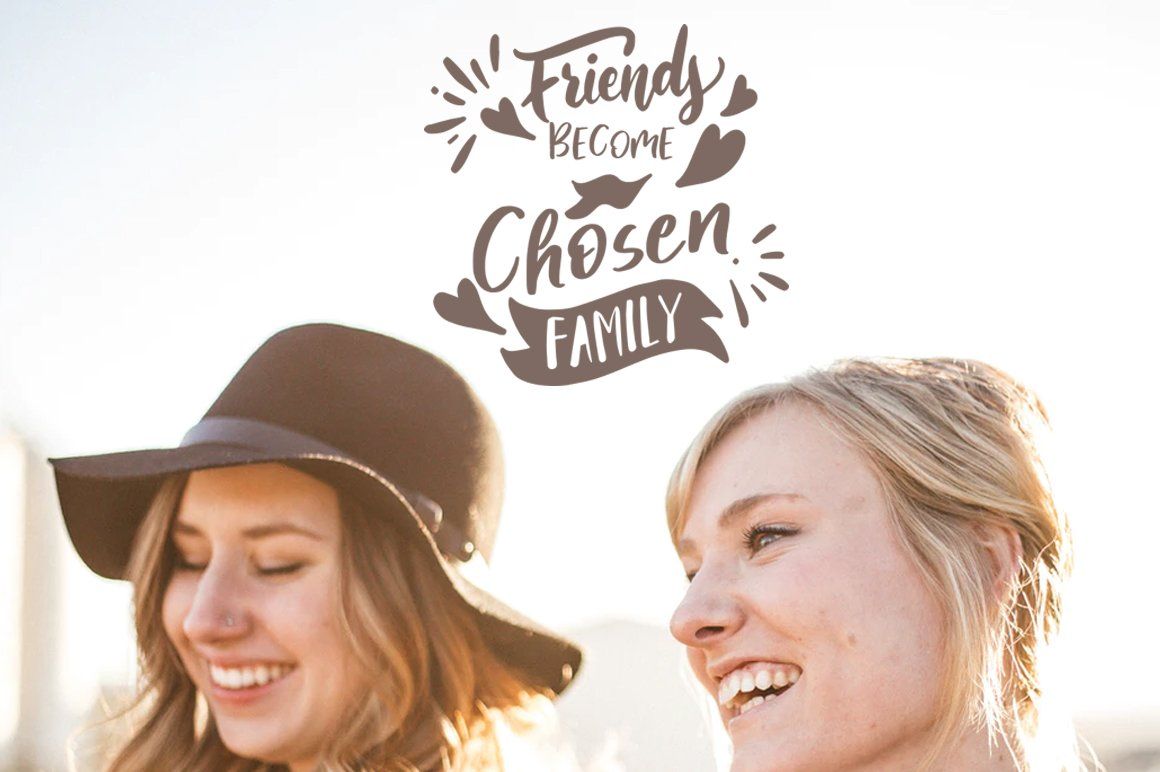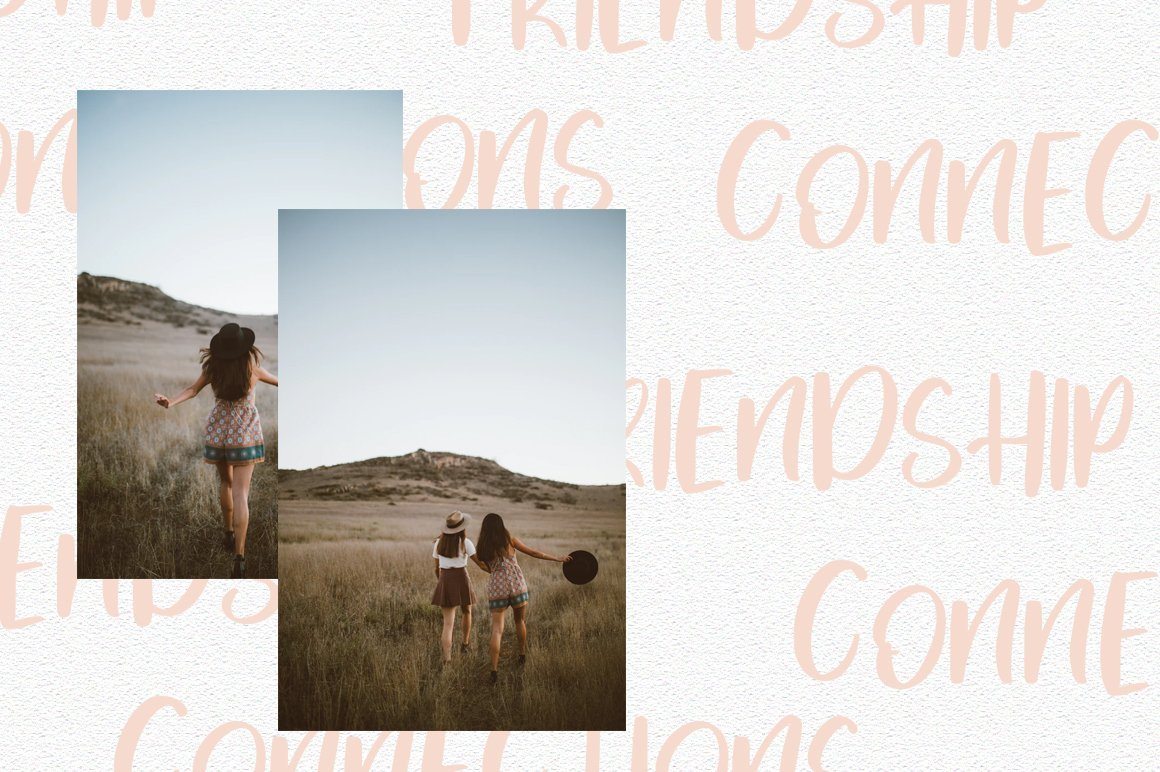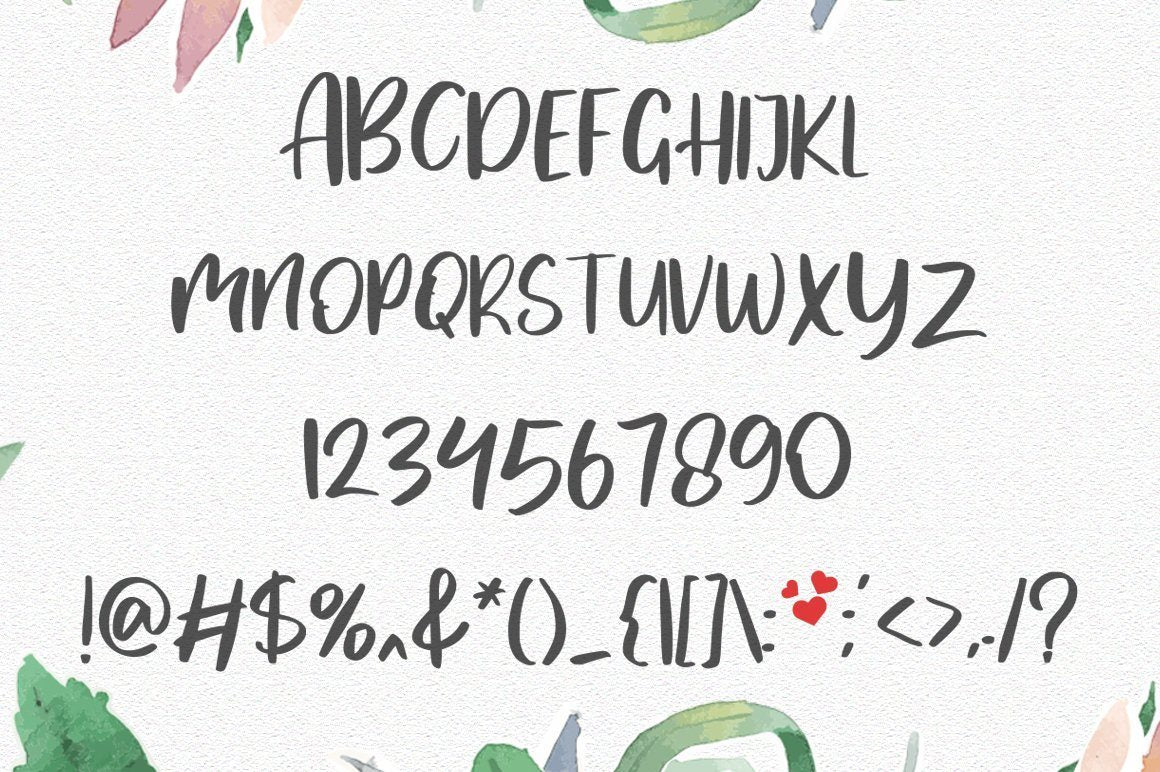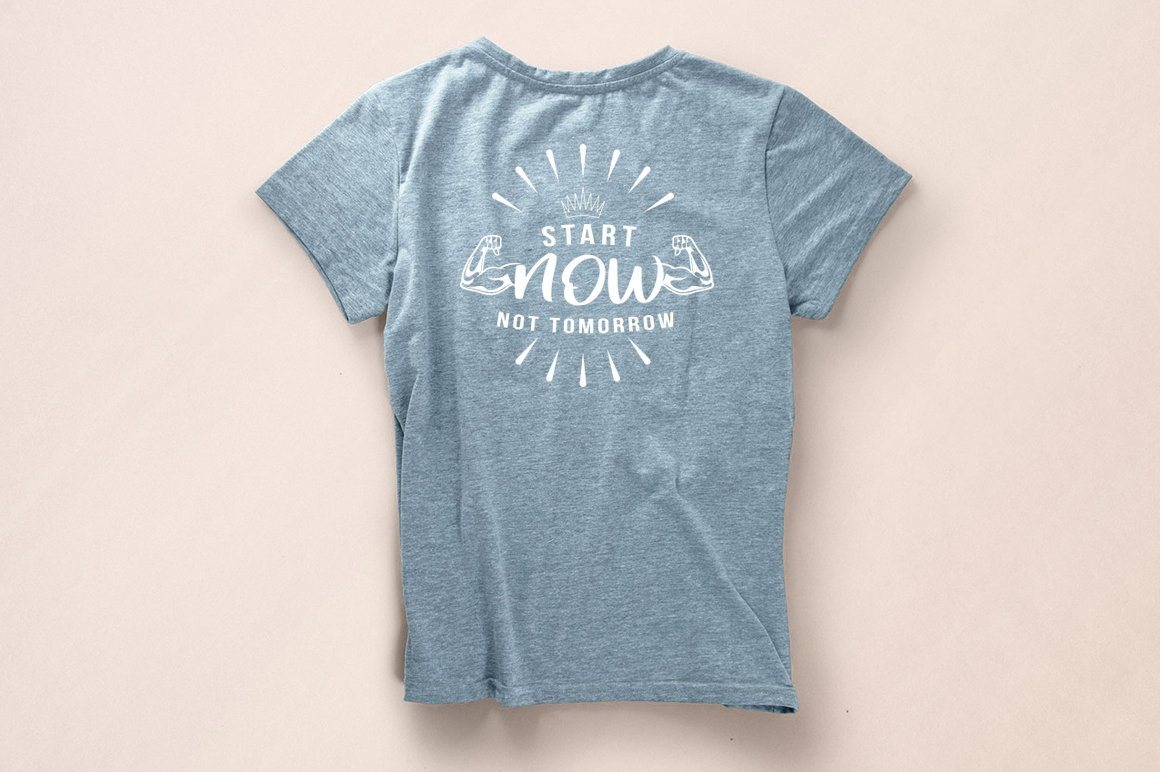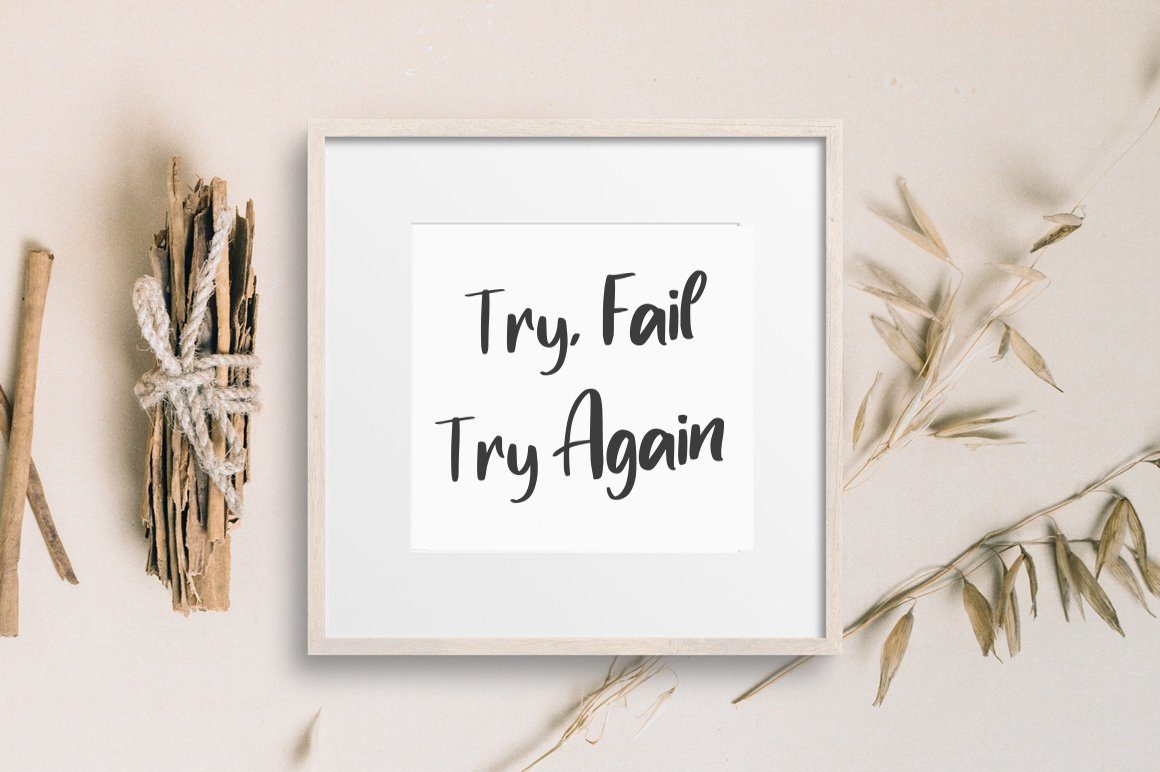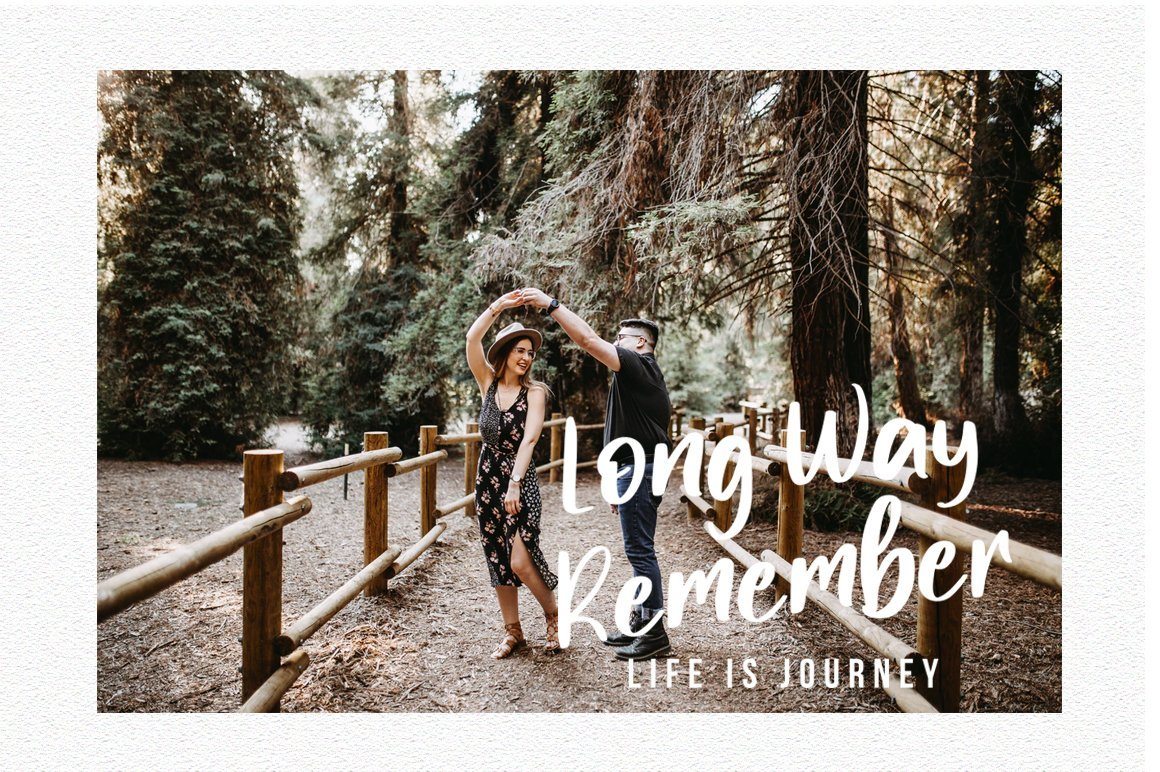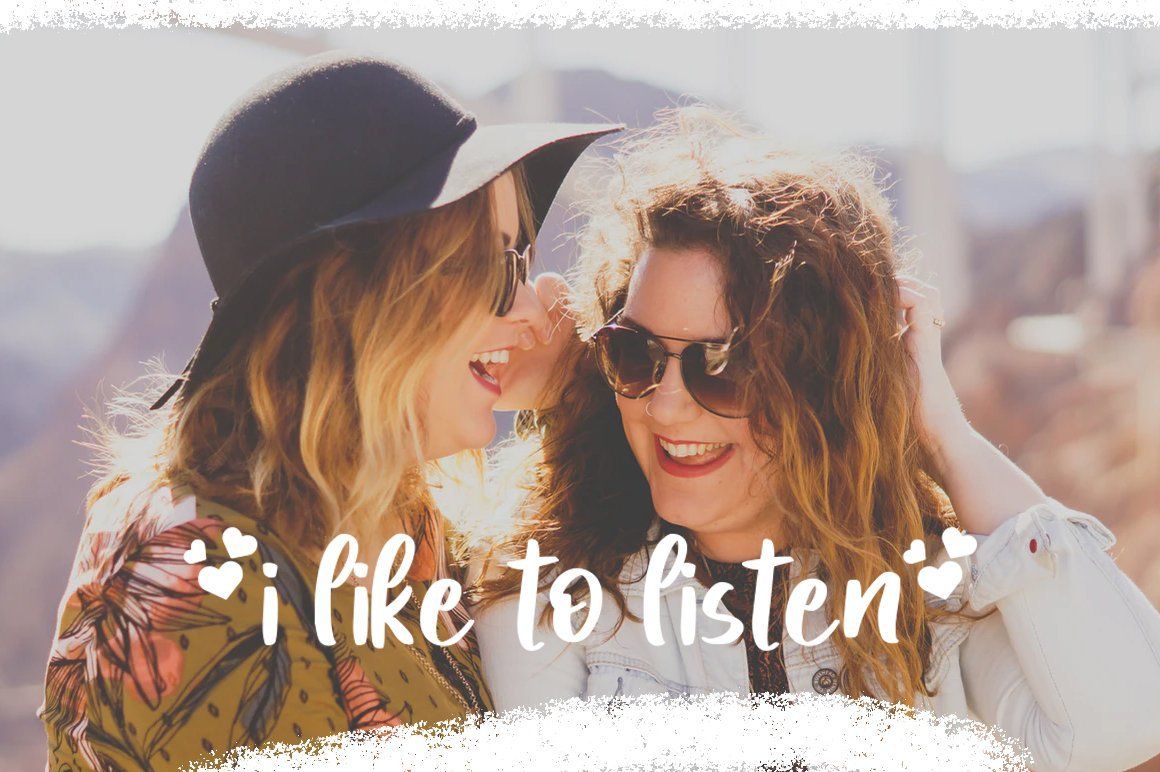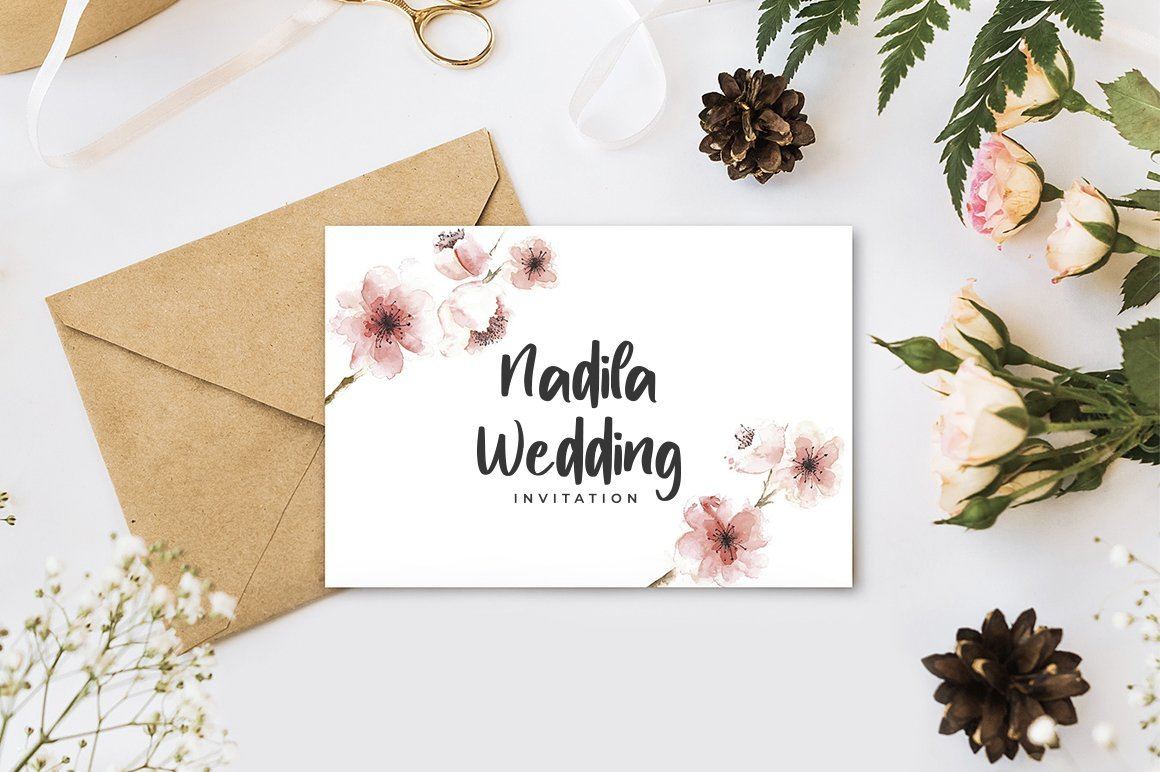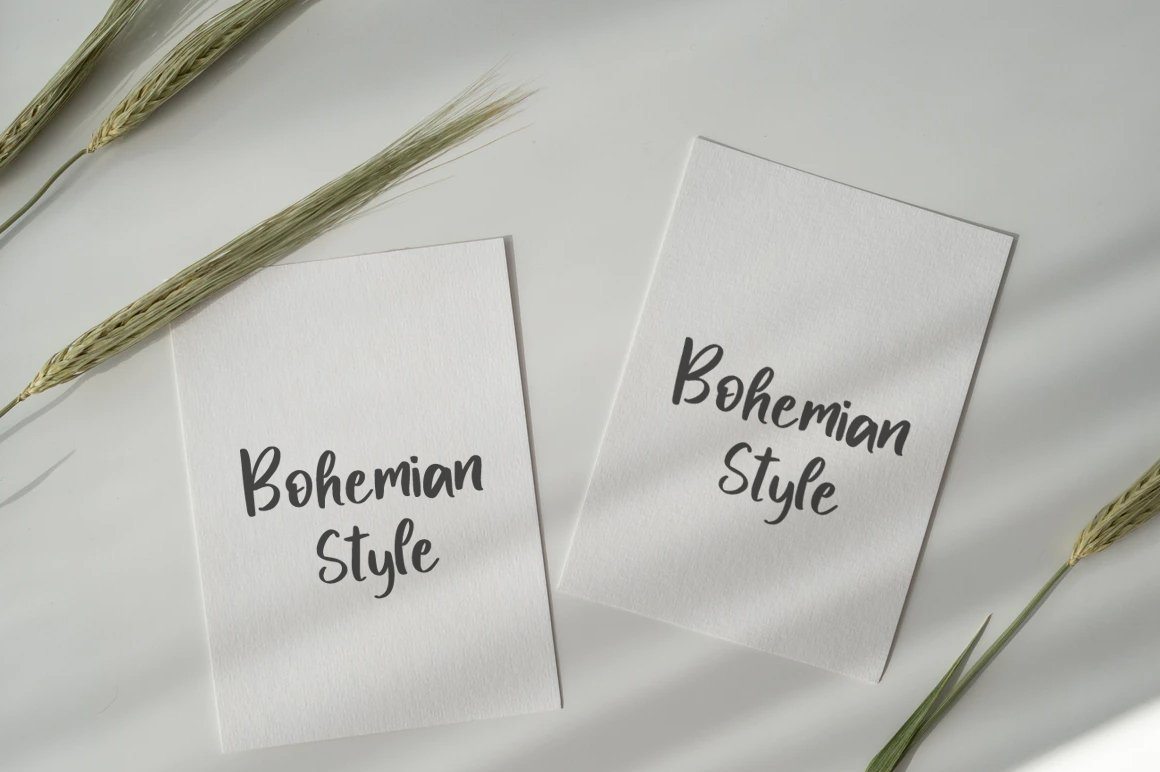
Mylove – Love Font
About Mylove – Love Font
My Love is a sweet and beautiful handwritten font, created with the help of a lovely brush pen. Fall in love with its incredibly versatile style and use it to create gorgeous wedding invitations, beautiful stationary art, eye-catching social media posts, and much more! You WIll Get : Zip file containing: either a OTF and TTF file Font Features : Web font file (.WOFF) Uppercase + Lowercase Letters Numbers + Punctuation Ligature Feature OpenType features Multilingual support Compatible with  Adobe Illustrator, Adobe Photoshop, Adobe Indesign, Word, Corel draw, inkscape Silhouette Studio, Cricut Design Space, Scan N Cut, and other cutting and design programs